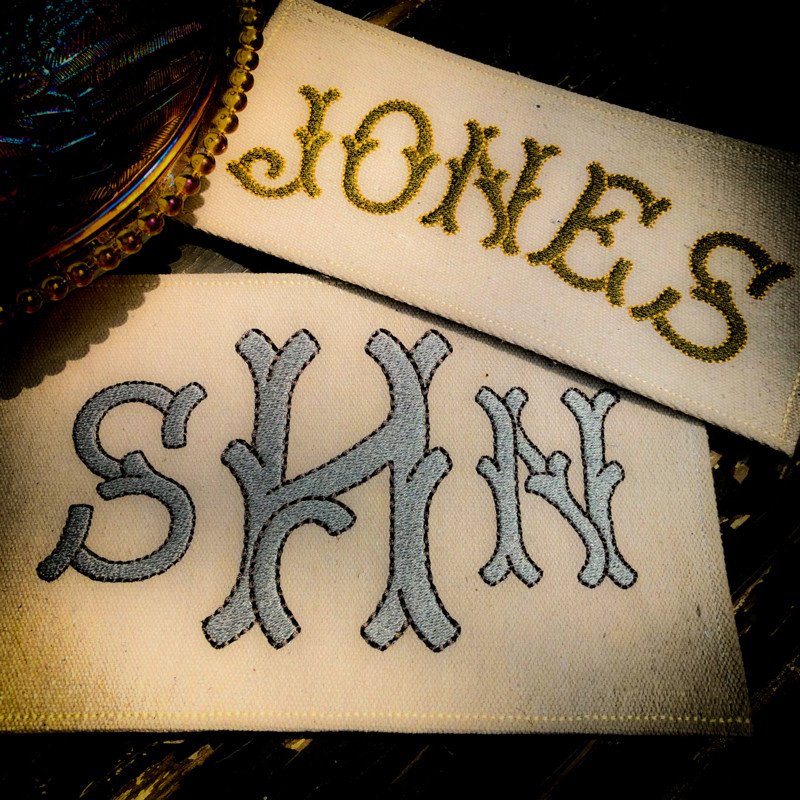
776 Branches Fill & Floss Font
776 Branches Fill & Floss Font comes in 1.5", 2", 2.5", 3", 3.5", 4", 4.5" and 5" heights. Features all 26 Capital Letters (no lowercase, no number, no punctuation marks). Each letter is finished in Fill Stitch with Floss Stitch outlines and accent lines. Floss Stitch stitches out on all embroidery machine using standard embroidery thread.